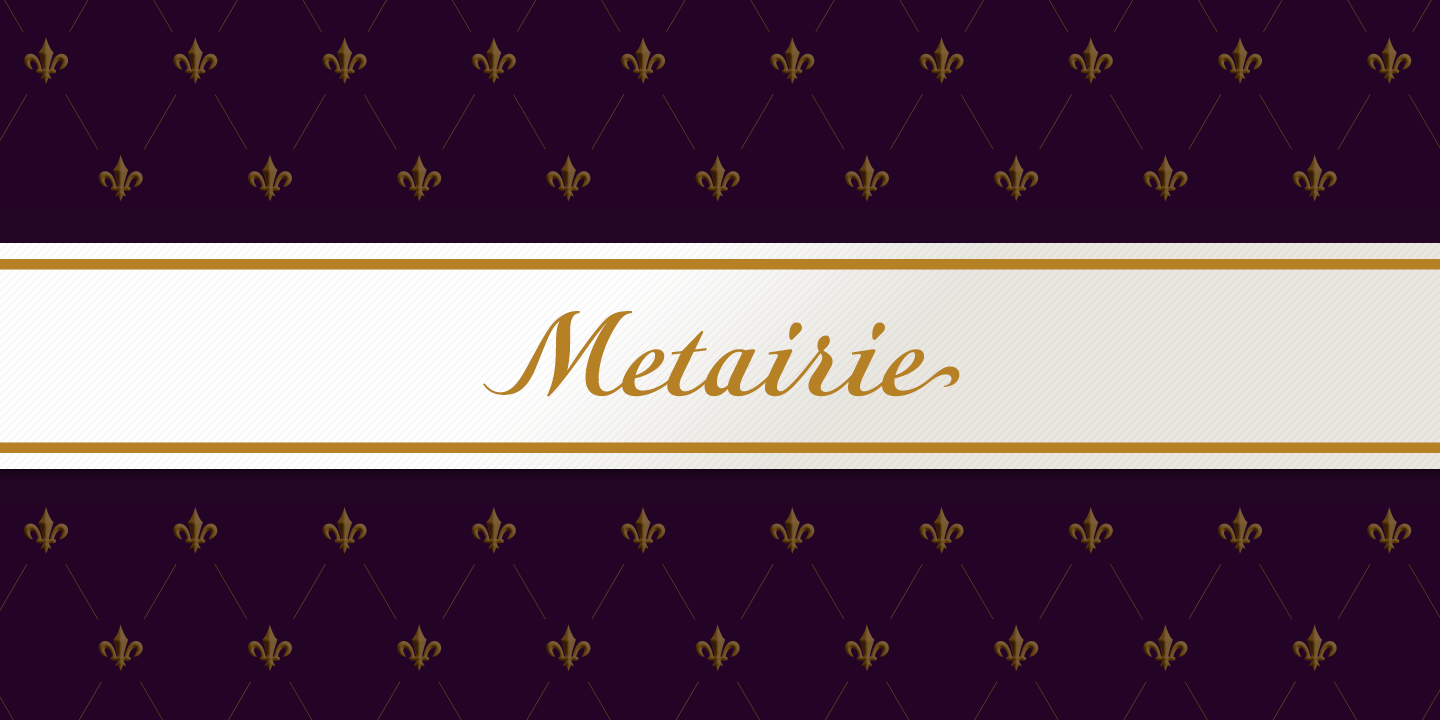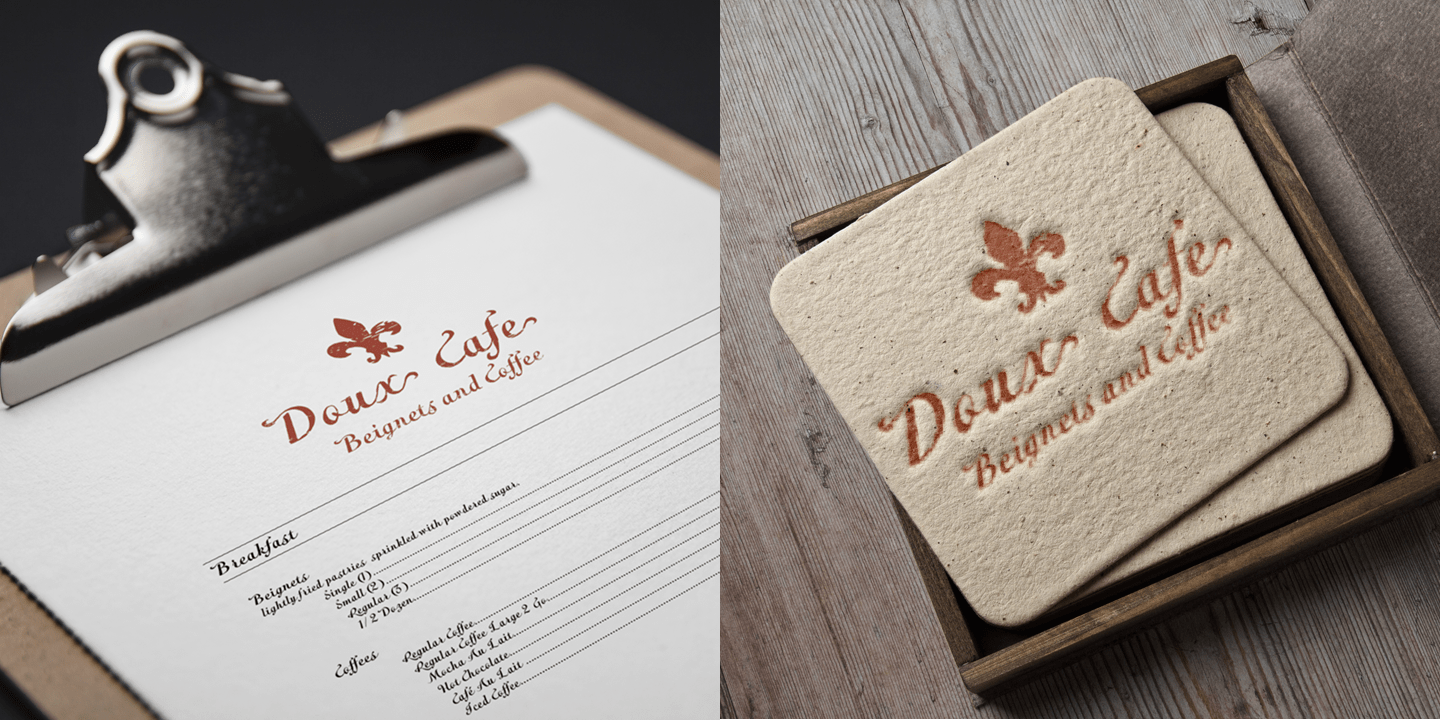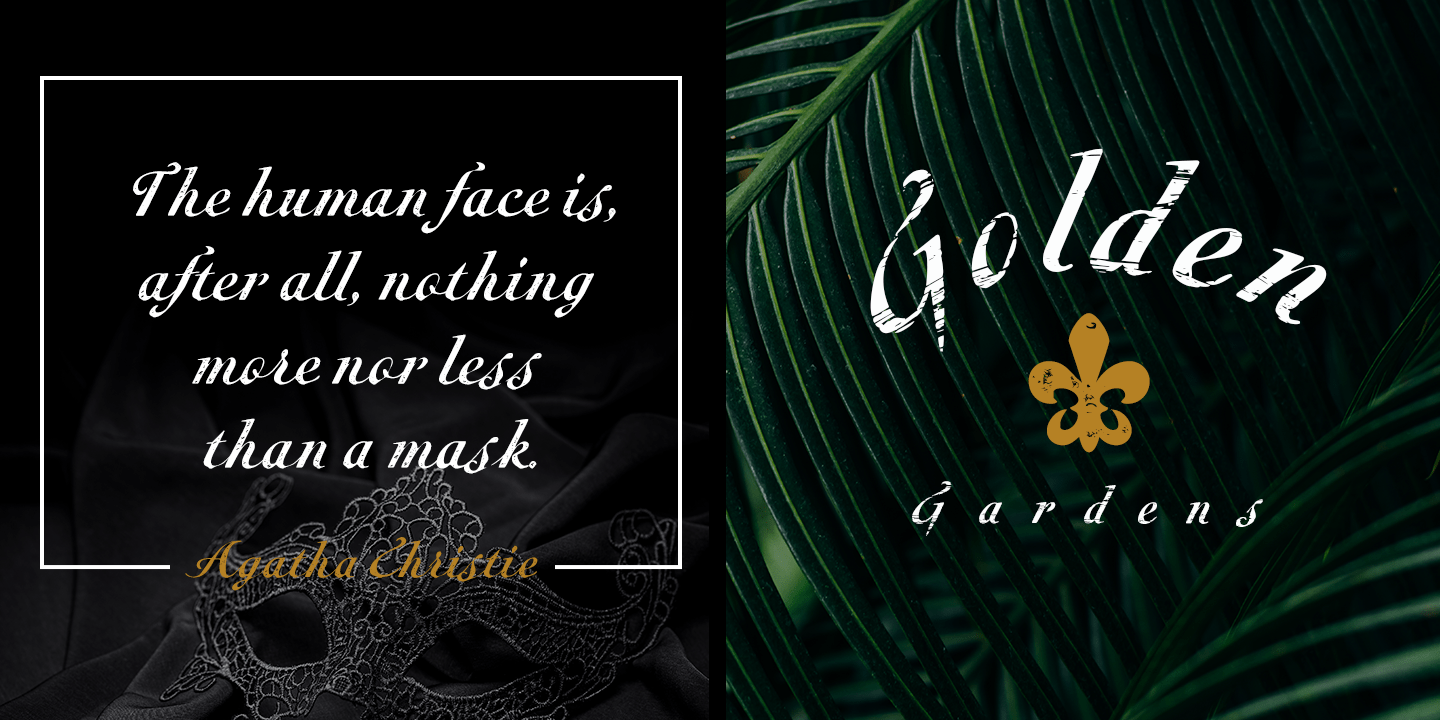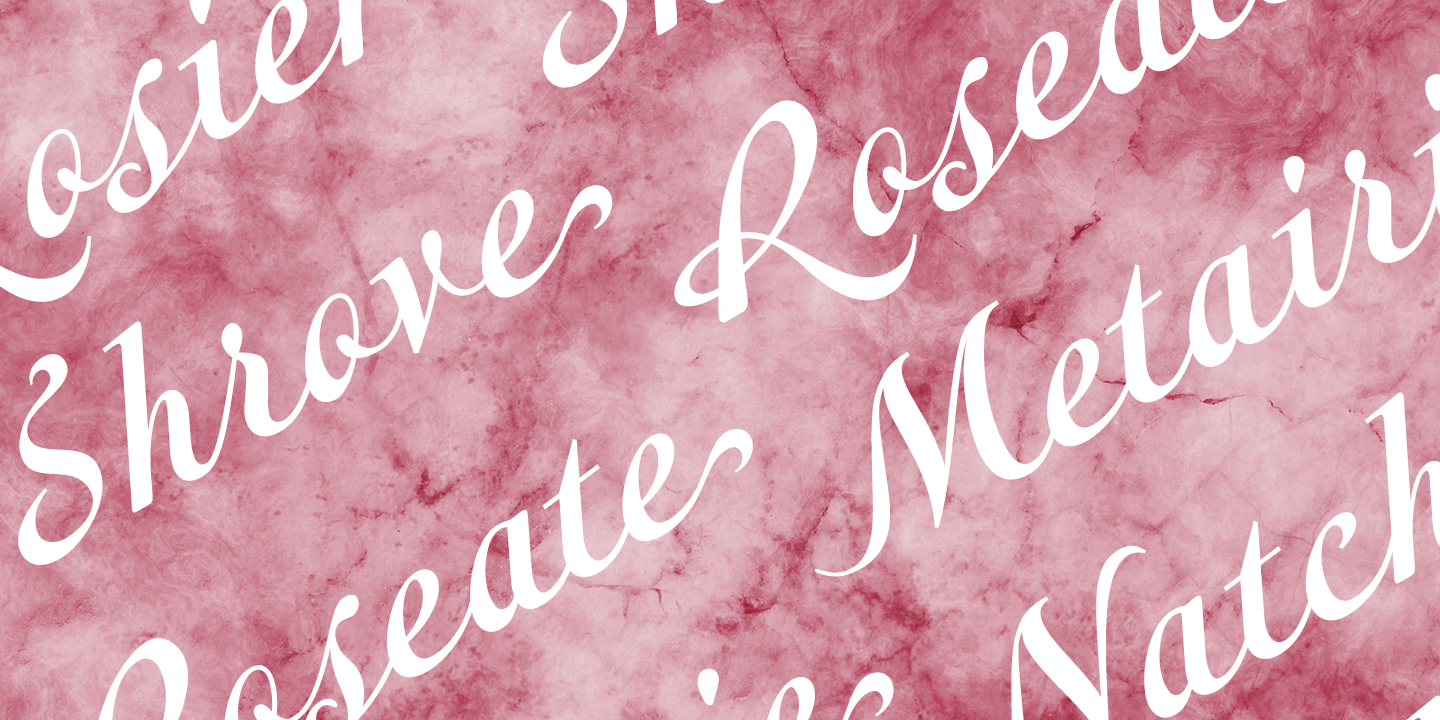
Metairie
Get in the swing with Metairie. This high-contrast script from Jeremy Dooley sets the rhythm for your next headline or short phrase with its fresh, expressive forms.
Metairie's (sometimes exaggerated) scrawled letterforms play on the colorful world of calligraphy to bring you a fully developed personality of its own. Inspired by elixirs and pharmaceuticals of the 1800s, this design has forms that dig down deep to the soul. It brings a unique, vibrant feel for your next message.
The typeface supports all major Latin languages, and the expanded OpenType capabilities let you slide elements easily and quickly into your design. Metairie also includes a number of distressed options.
Improv a bit, too, with Metairie's decorative ornaments, variations on the fleur de lis. Ornaments and tails are accessed through the glyph palette or using the Swash function. An extensive set of ligatures gives you more options for humanizing the handwriting on the page.
Ready to step in? Take a stab at your next design with Metairie. It could be just the color you need.